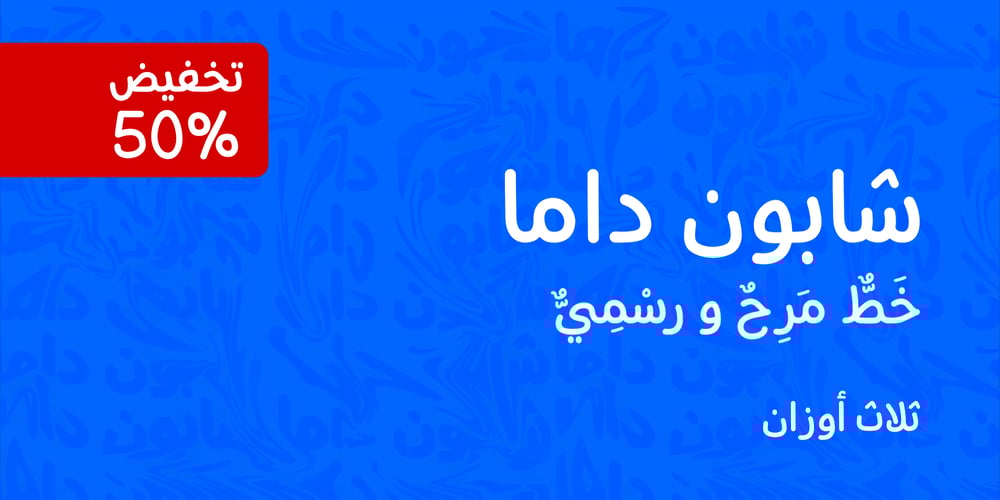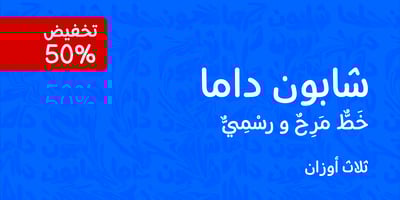
Shabon Dama
Shabon Dama font
Shabon Dama Font Family was designed by Abdulrahman Alherbi and published by Abdulrhman Saeed. Shabon Dama contains 3 styles and family package options. Shabon Dama is a cheerful fun Arabic typeface, it bridges the gap between formal and fun, thus keeping it readable. It fits well with video games rated for everyone, kids comics and books, and cheerful marketing. Featuring three weights: Light, Regular, and Bold. ARABIC CHARACTERS ONLY.